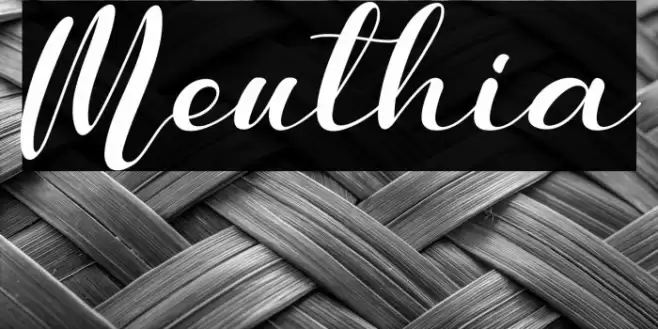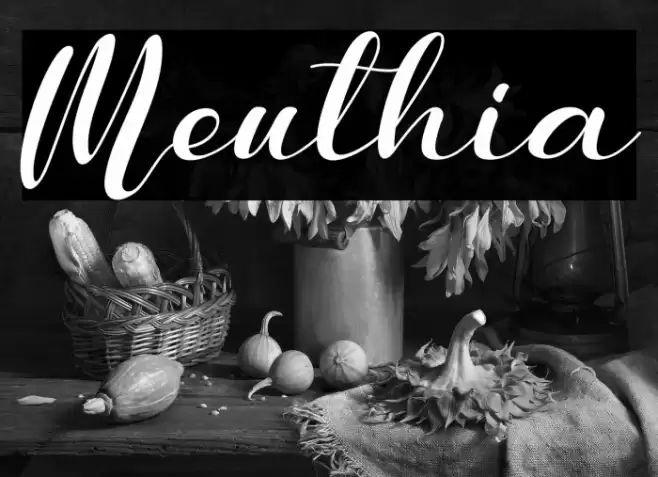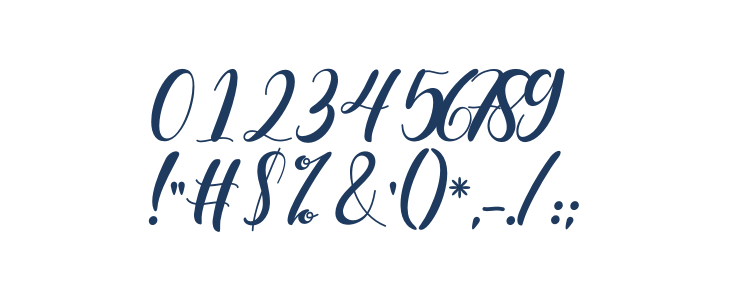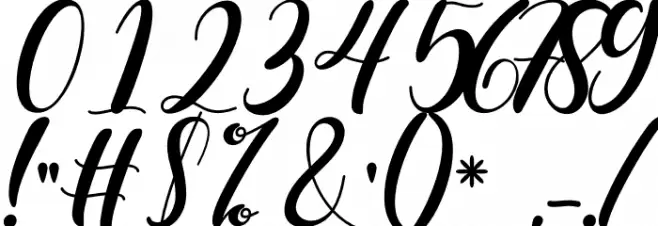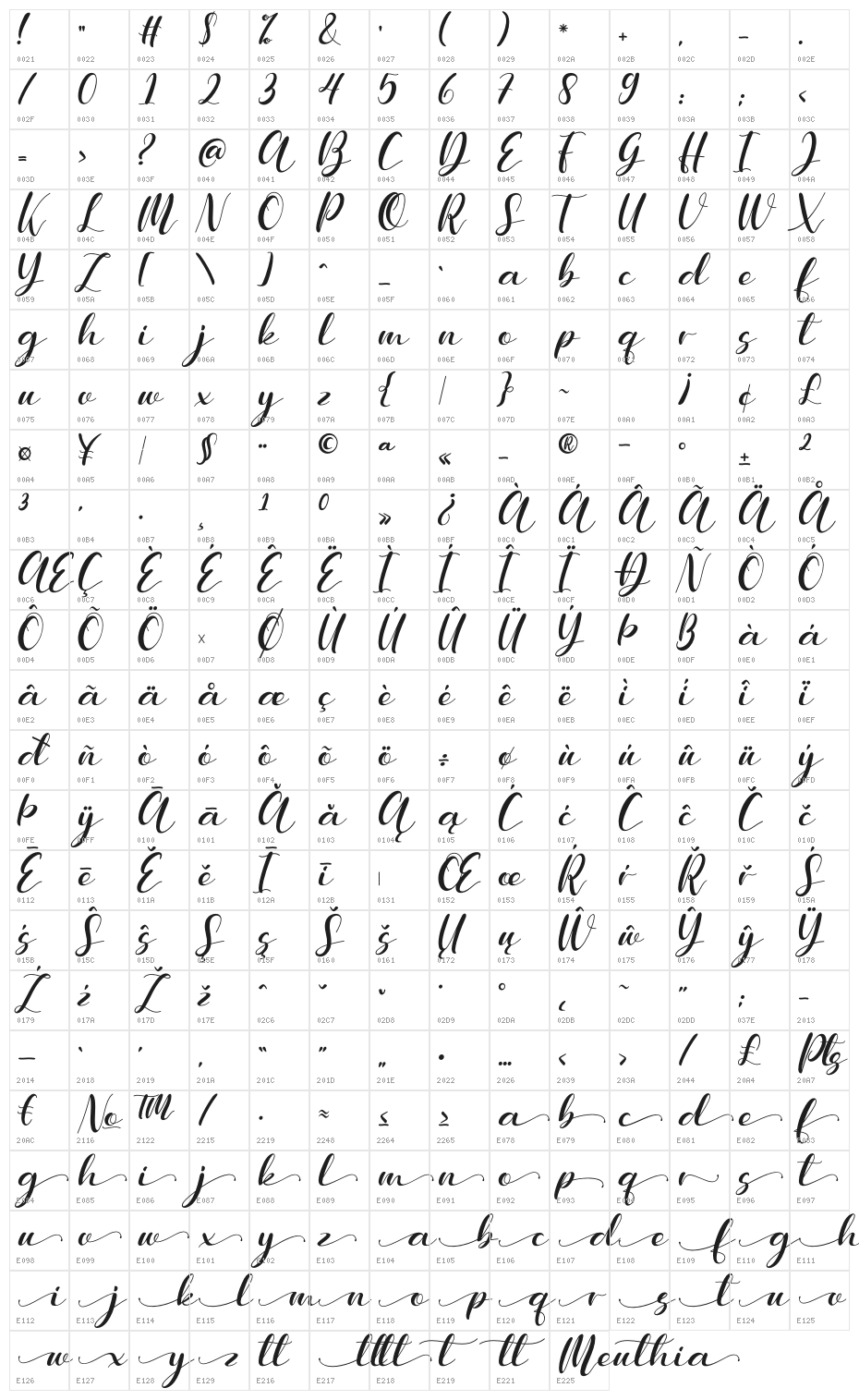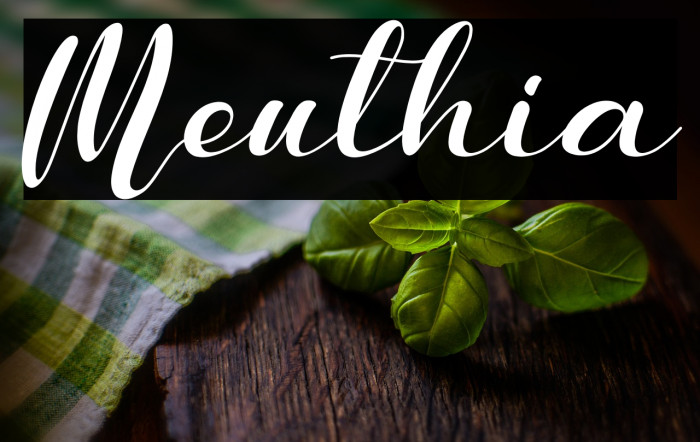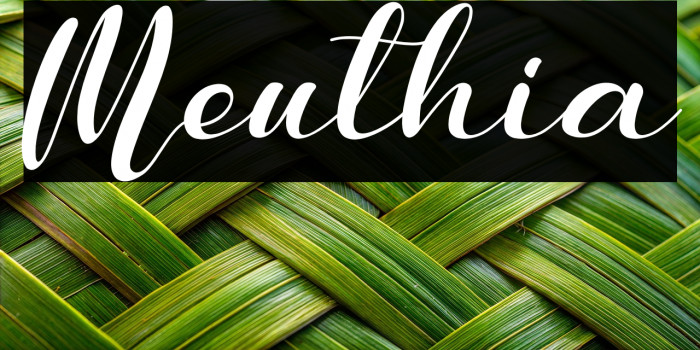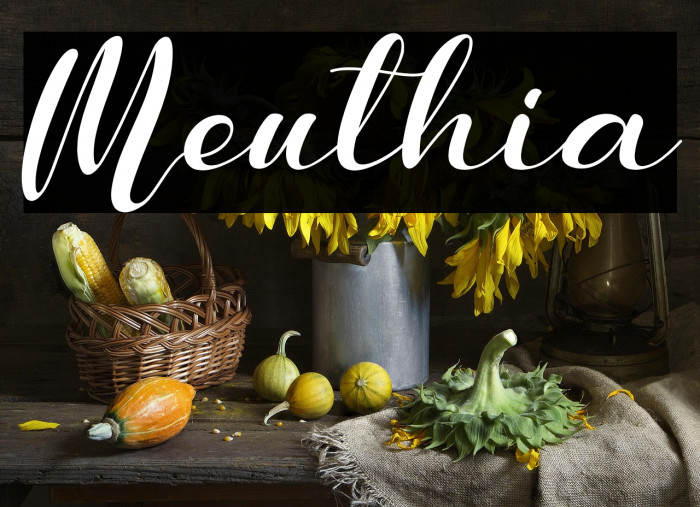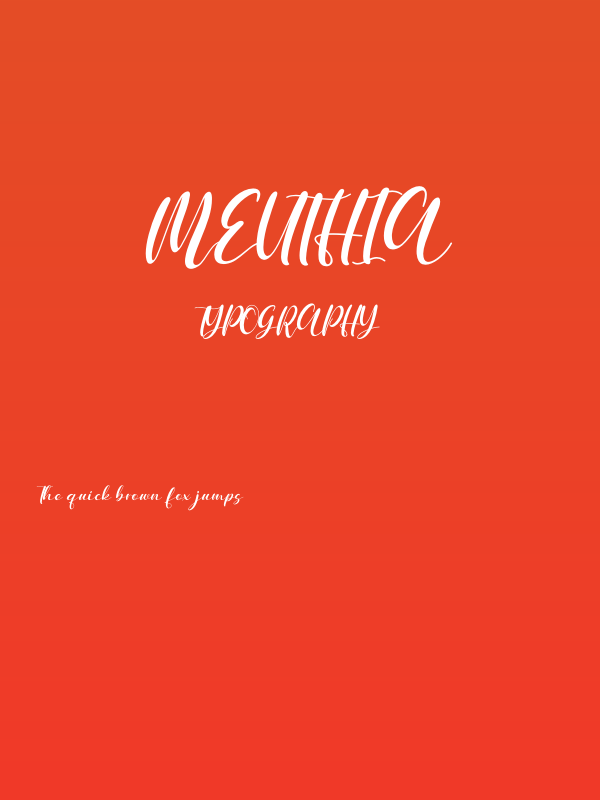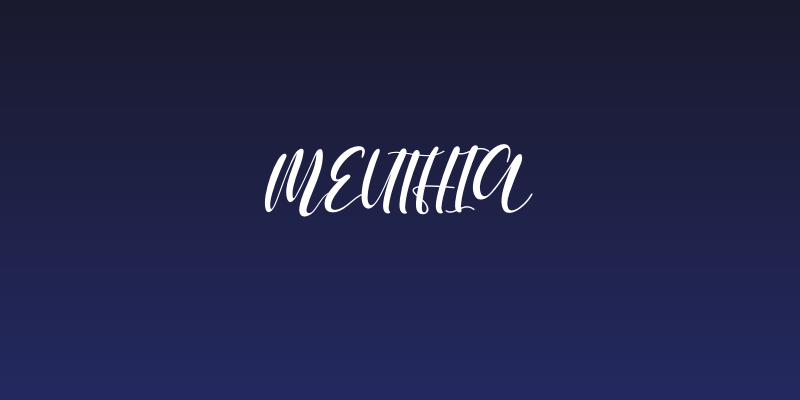
Meuthia Font
Meuthia Description
This font features an elegant and flowing script style, characterized by its smooth, cursive strokes and graceful curves. The uppercase letters are bold and prominent, with a distinct flair that adds a touch of sophistication. The lowercase letters maintain a consistent fluidity, enhancing readability while preserving the artistic nature of the script. Numbers and special characters are designed to complement the overall aesthetic, with a harmonious balance between form and function. The font's design is perfect for adding a personal and stylish touch to any project.
An elegant, flowing script font with smooth, cursive strokes from Regular fonts.
- Proposed Projects: Ideal for wedding invitations, greeting cards, branding, and elegant packaging.
- Overall Style: Elegant
- Use Case: Logos, Invitations, Decorative text